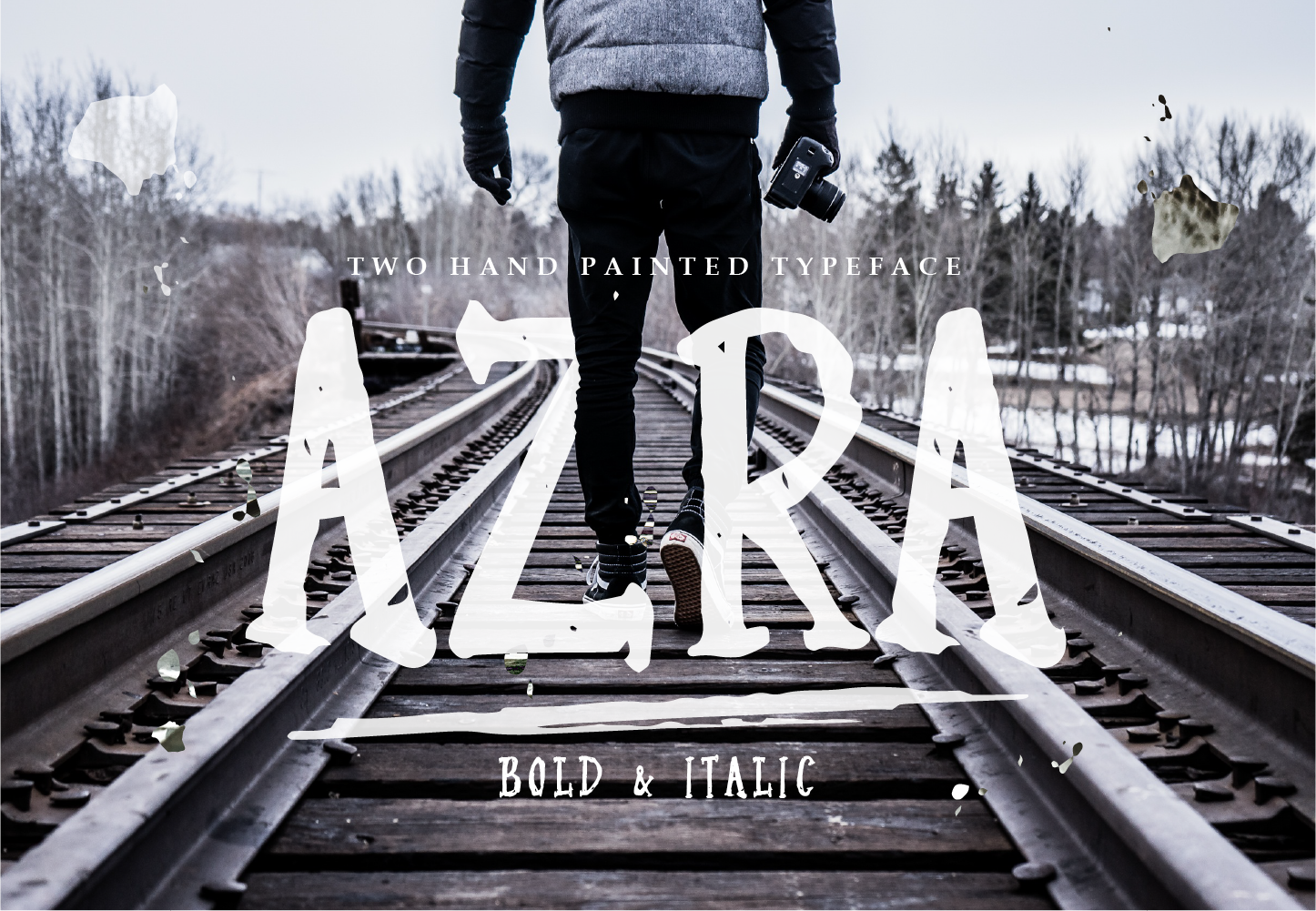
Azra Typeface
Azra Typeface is a rough handbrush includes two font family that could be used in a variety of designs such as Logos, Greeting Cards, Stationery Design, Invitations, T-shirts, Apparel, Packaging designs, Posters, Typographic Design, and many more.
Azra is a hand-made paint brush font with bags of personality. It comes with a large range of characters including capitals, lower-case, numerals, punctuation, currency and accents.
Designed to be used & abused - so have fun with it, we can't wait to see it in action :)